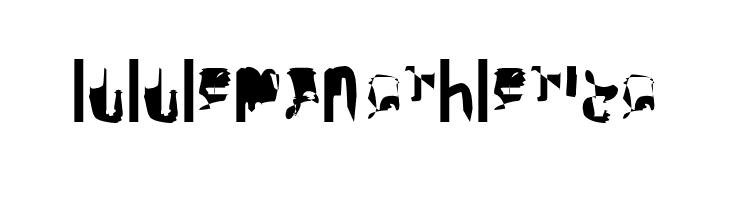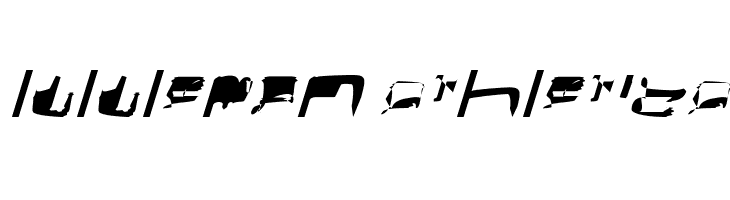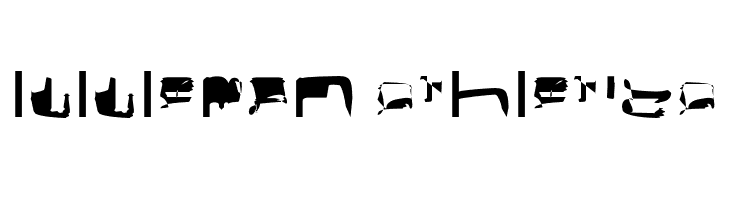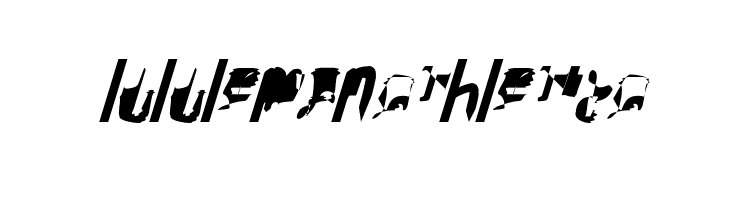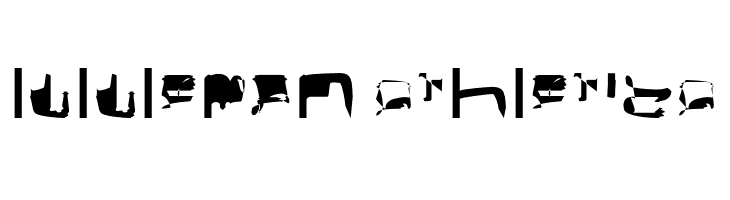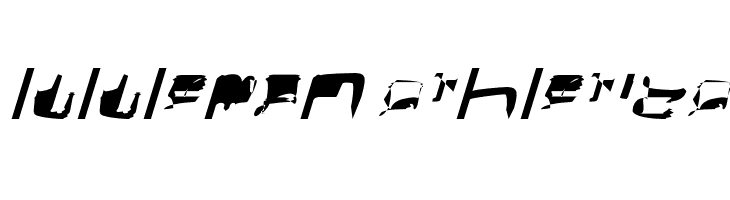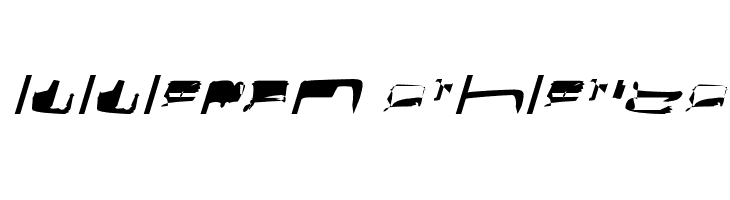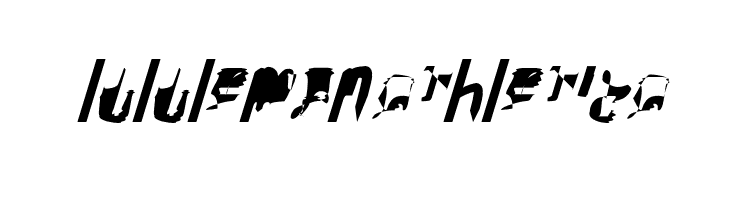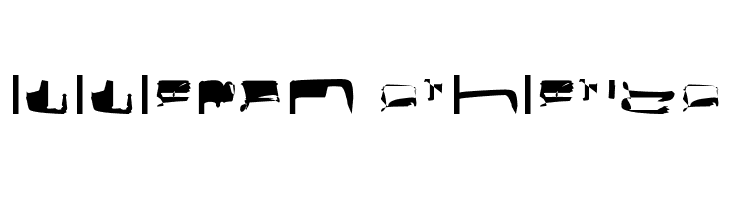
An elongated, elegant font with decorative elements and refined letterforms.
A bold, handwritten font with a playful and informal style.
Expressive handwritten font with dynamic strokes and a natural flow.
A dynamic, expressive handwritten font with fluid, organic strokes.
A whimsical decorative font with bird-like characters, ideal for playful projects.
A bold, distressed sans-serif font with a modern, edgy look.
A dynamic script font with flowing, cursive letterforms and dramatic flourishes.
A playful, whimsical handwritten font with heart embellishments.
A playful, bold script font with a handwritten style.
A playful font with letters inside balloon shapes, perfect for festive occasions.
A playful, candle-themed decorative font with polka dots and flames.
A bold, geometric font with a modern and impactful design.
Playful handwritten sans-serif with tall, narrow letters and casual feel.
A playful and whimsical script font with a lively, cursive style.
A playful, rounded font with a friendly and approachable style.
A playful, handwritten script font with a modern and whimsical style.
A bold, playful font with rounded, whimsical letterforms.
A playful handwritten font with a casual and friendly style.
An elegant, cursive script font with ornate swashes and a handwritten feel.
A festive, decorative font with numbers embellished with birthday-themed elements.
A playful, decorative font with characters enclosed in flag-like shapes, ideal for festive designs.
A festive dingbat font with birthday and party-themed illustrations.
A decorative font with birthday-themed illustrations for each character.
An elegant, flowing script font with intricate loops and swashes.
A graceful cursive font with elegant, sweeping strokes and decorative flourishes.
A bold, playful font with rounded edges and a whimsical style.
A playful and bold font with exaggerated curves and a whimsical style.
A bold, dynamic font with sharp edges and a vintage-modern style.
A bold, blackletter-inspired font with ornate detailing.
A modern sans-serif font with clean lines and balanced proportions.
A modern, clean sans-serif font with balanced stroke widths and excellent readability.